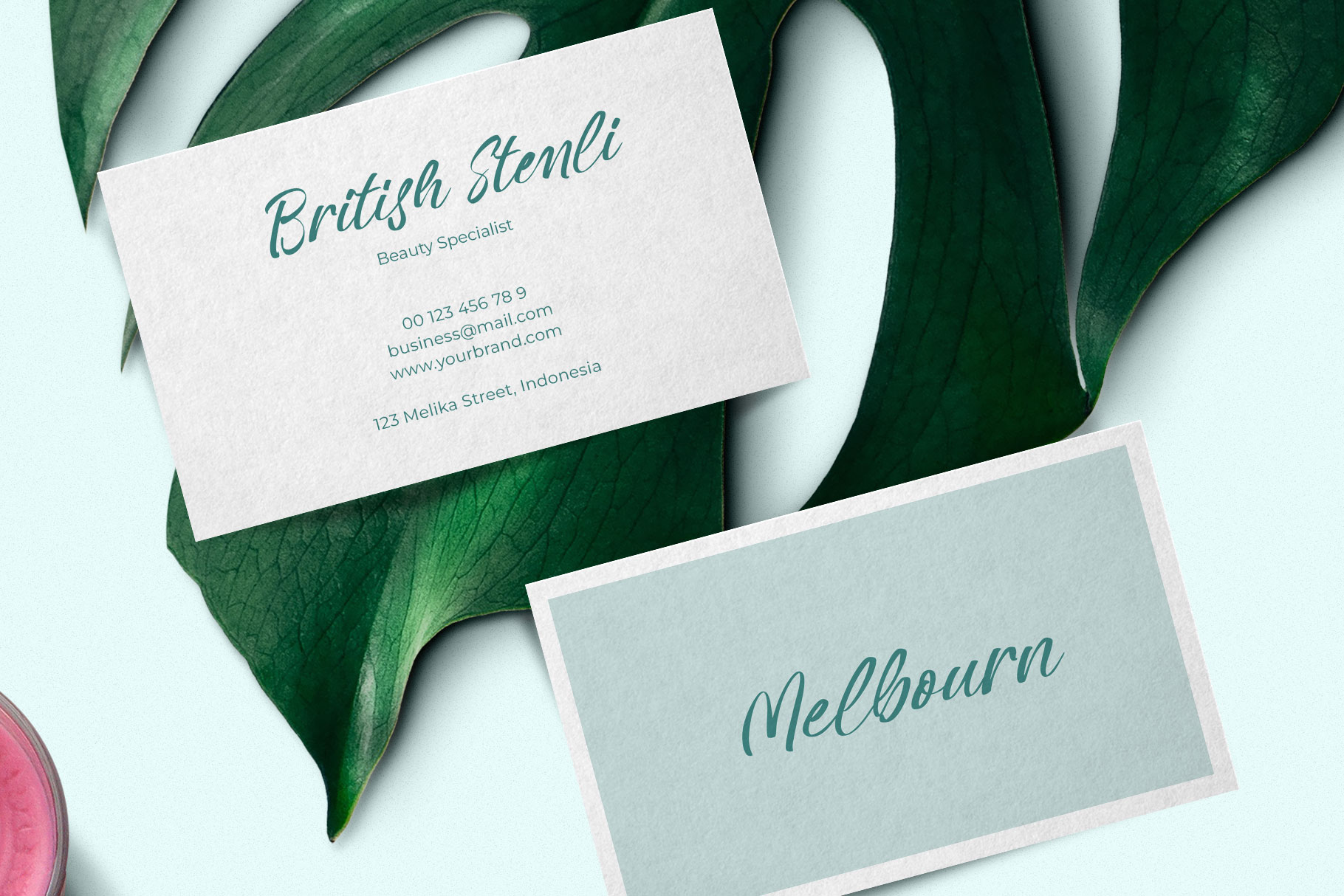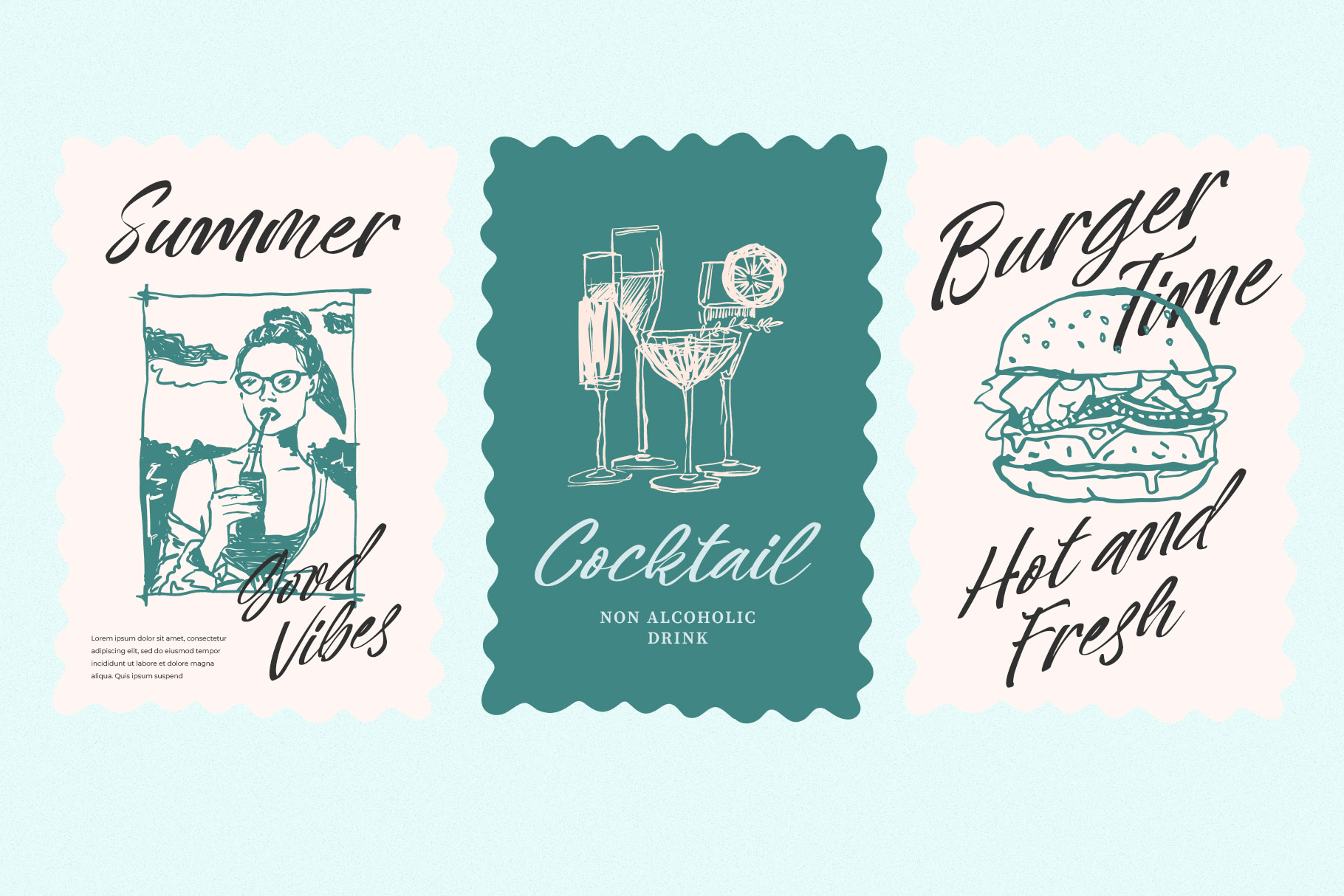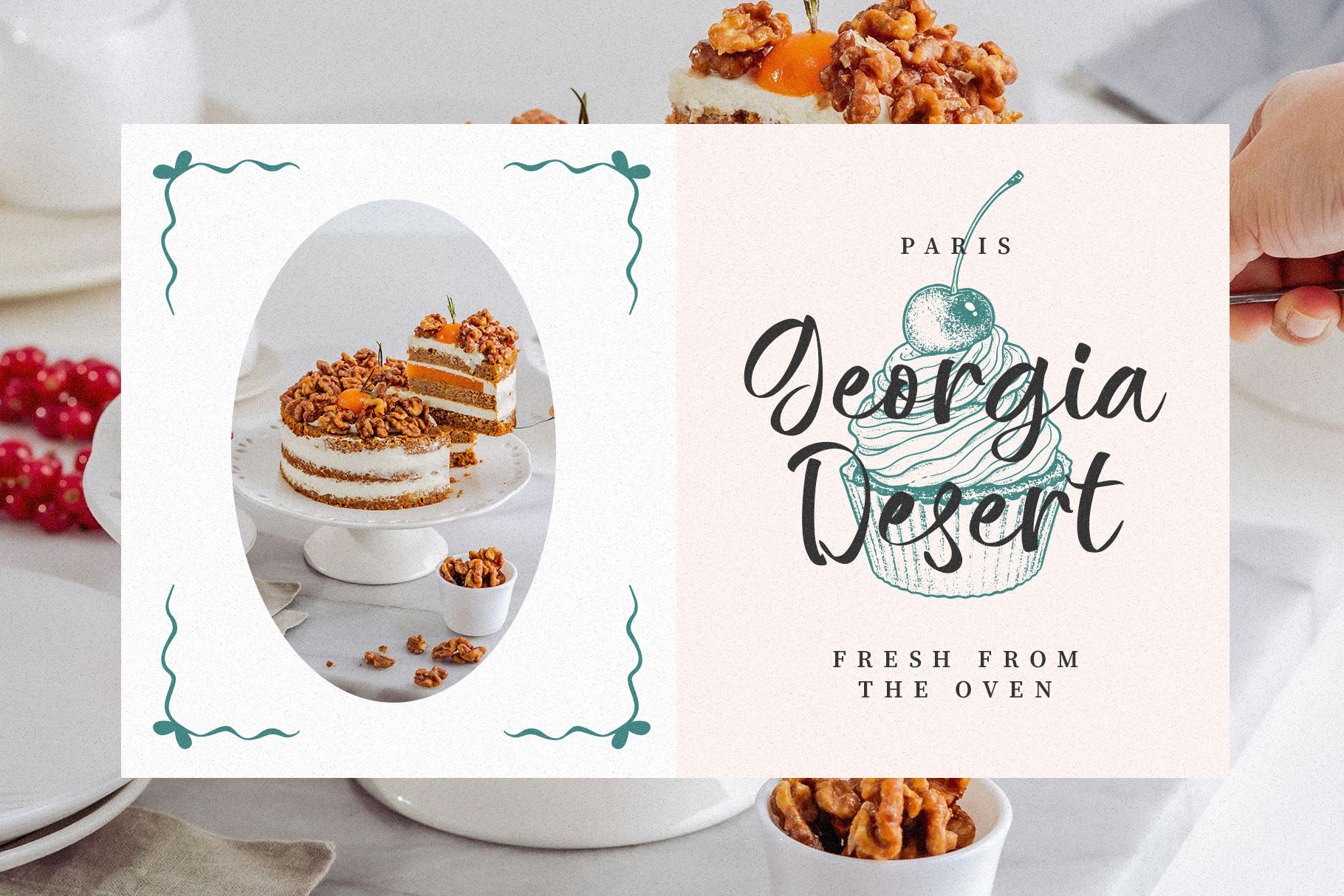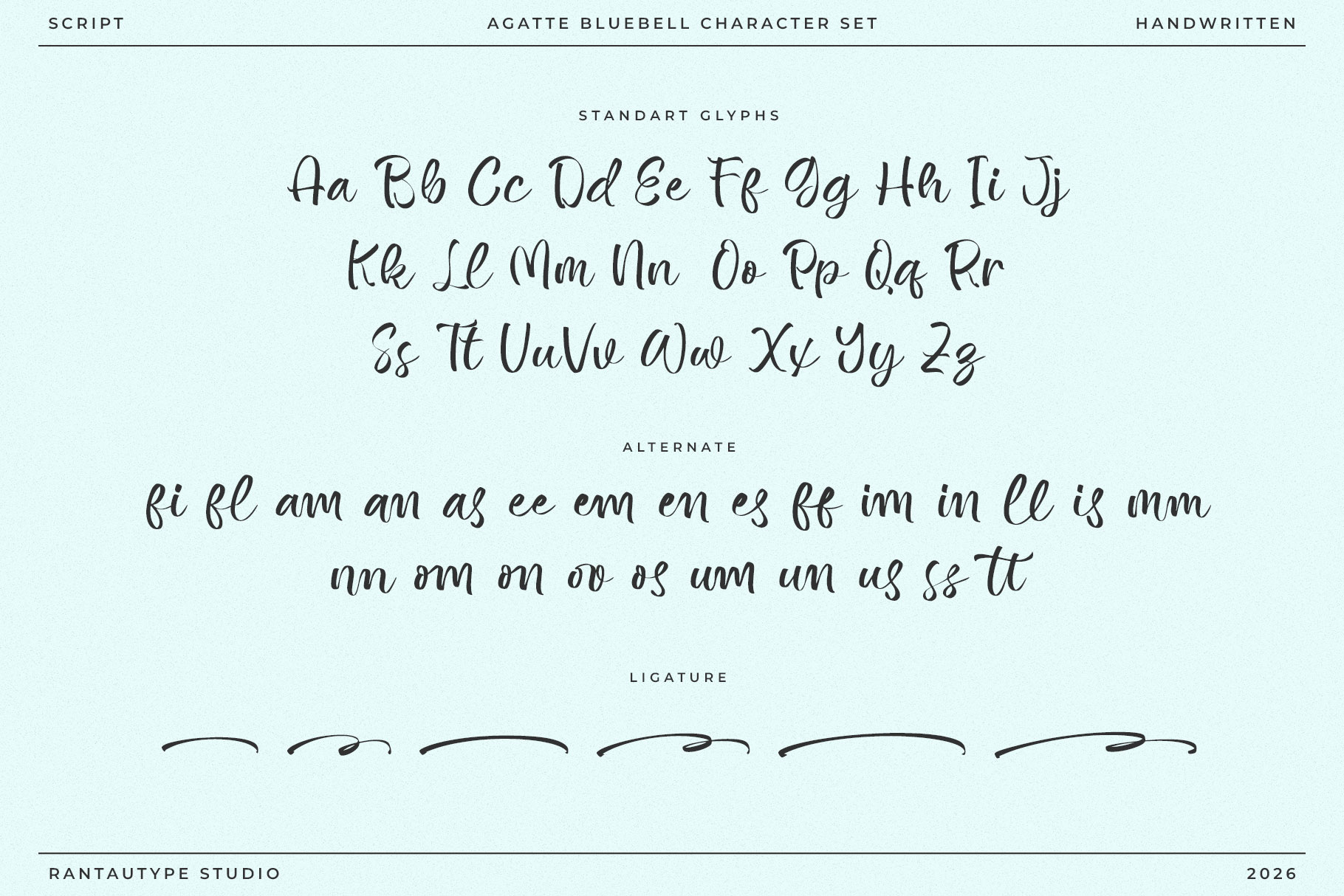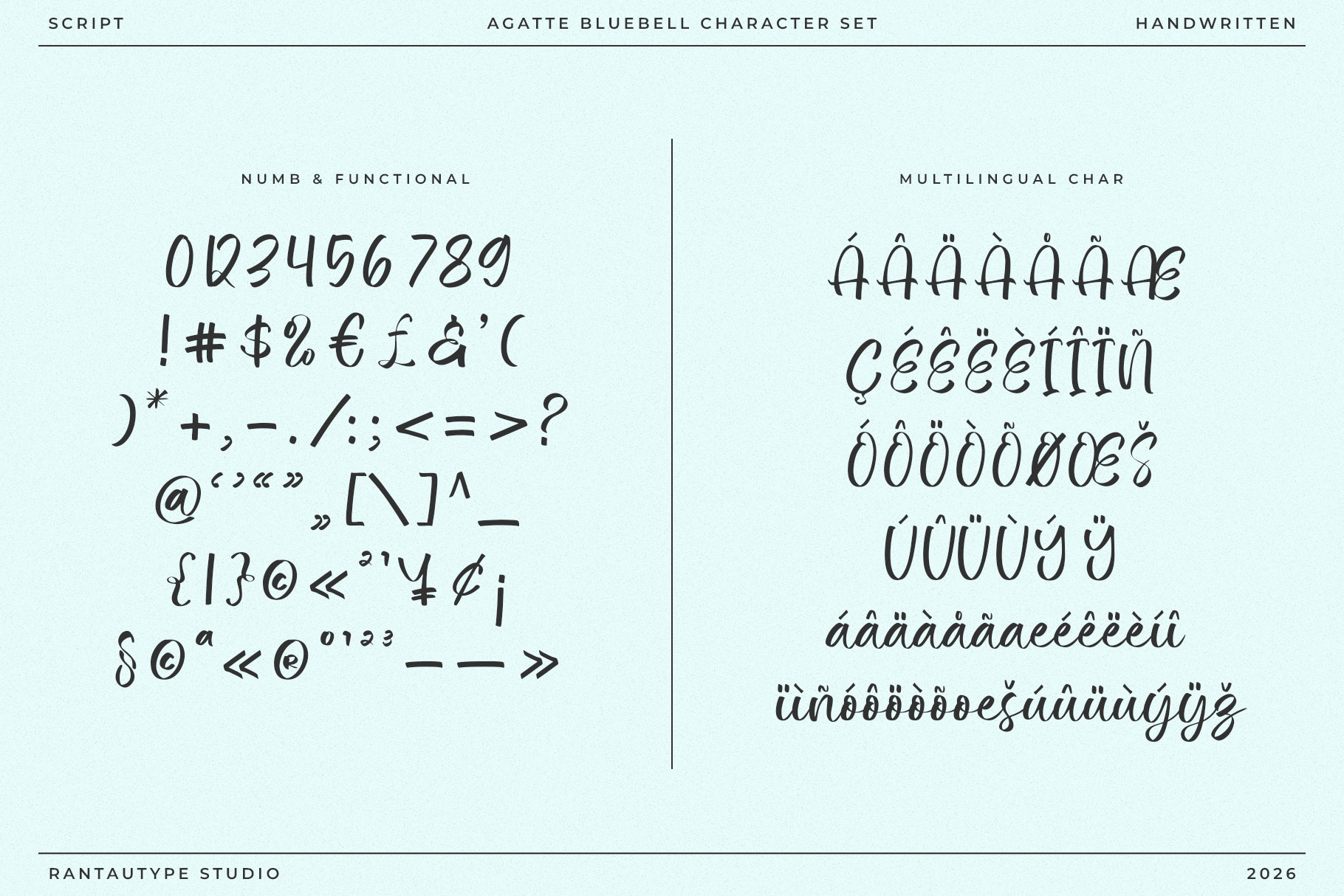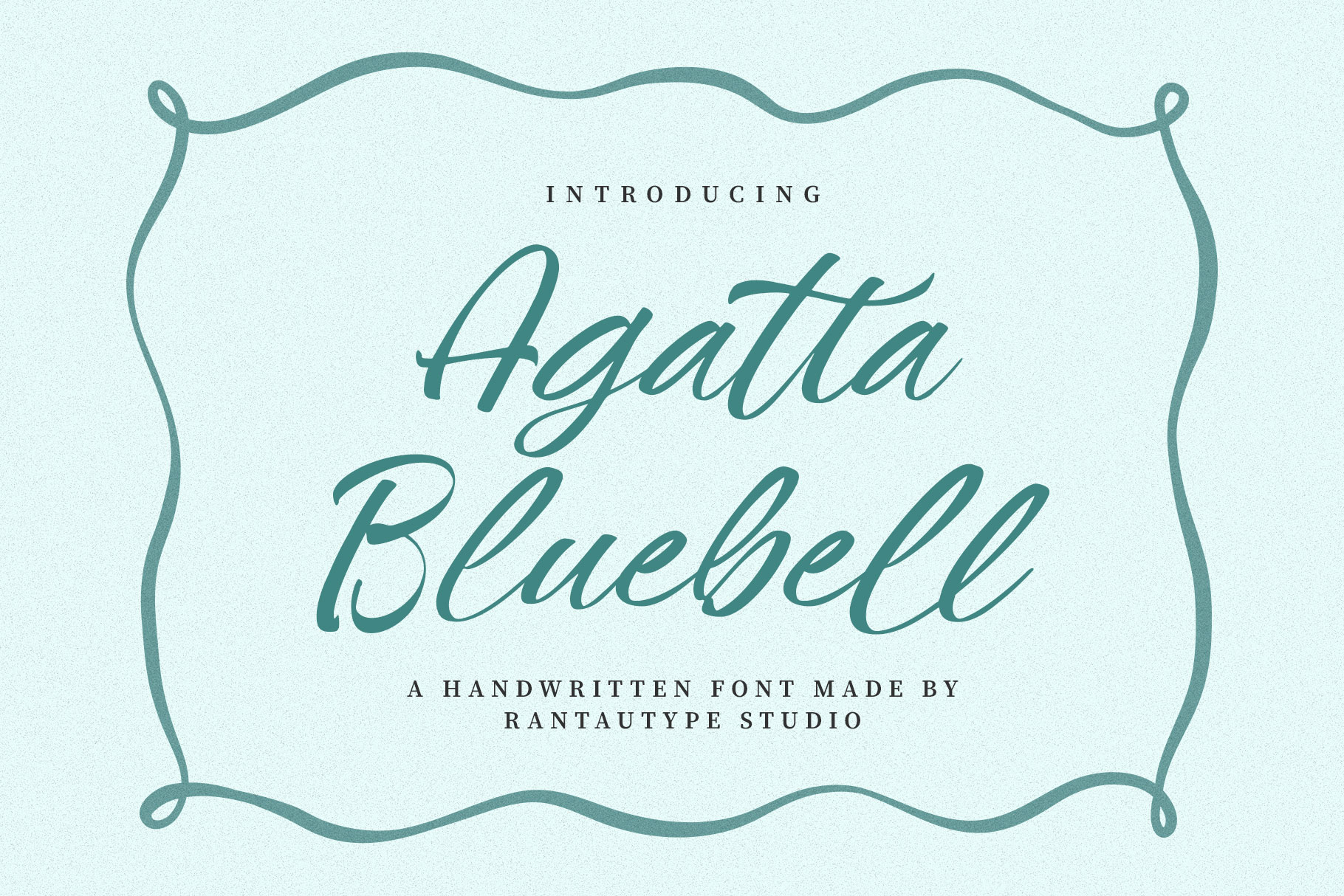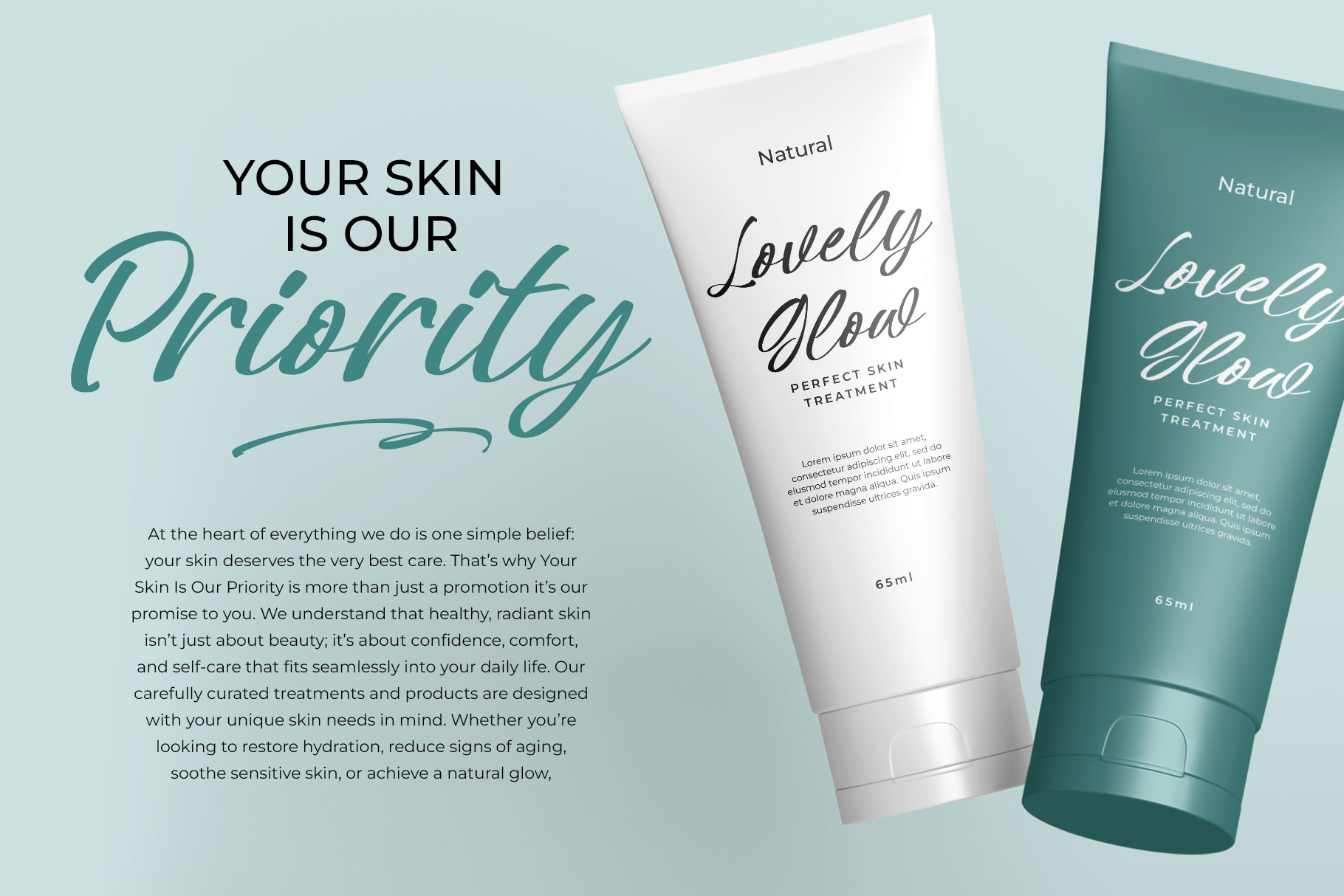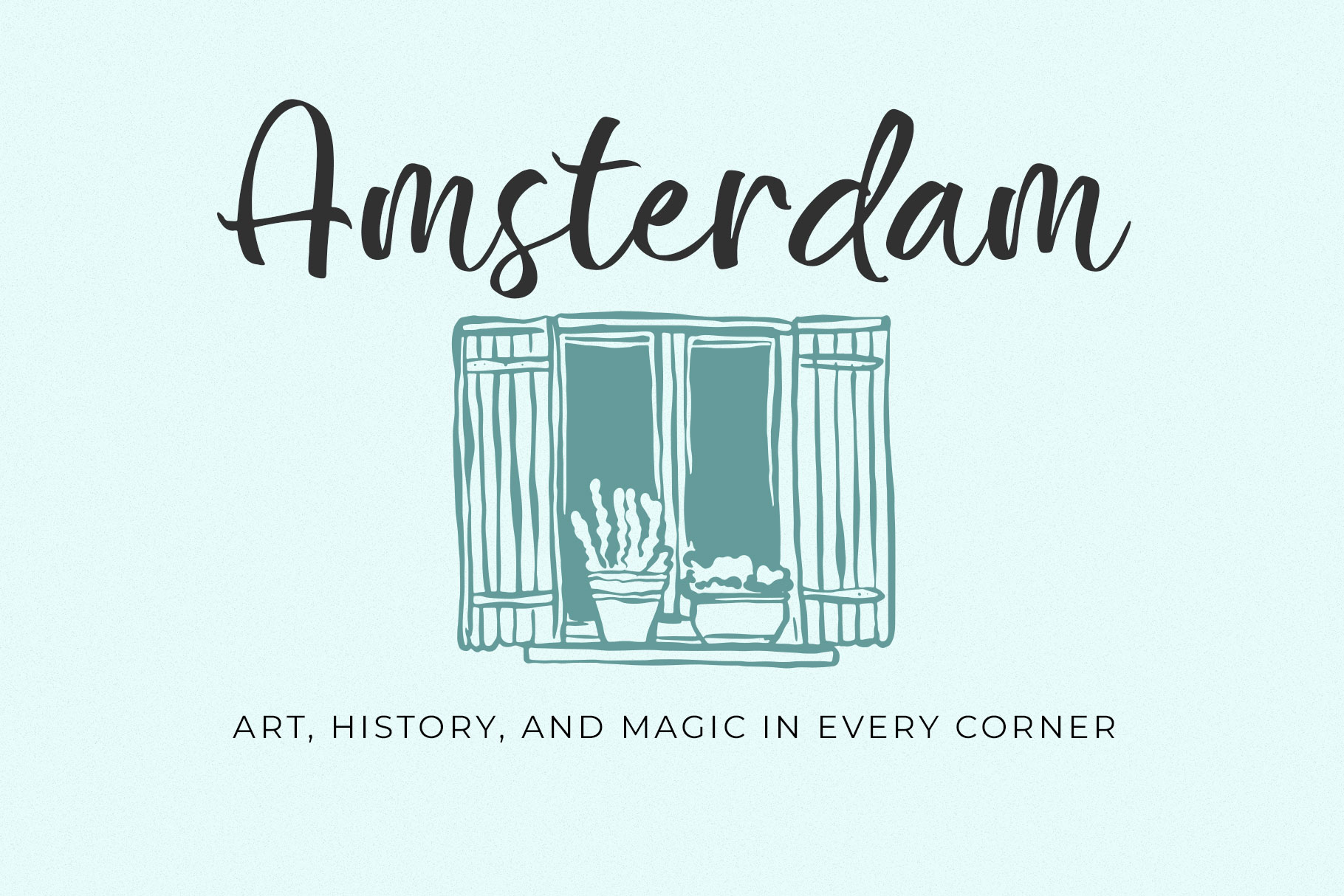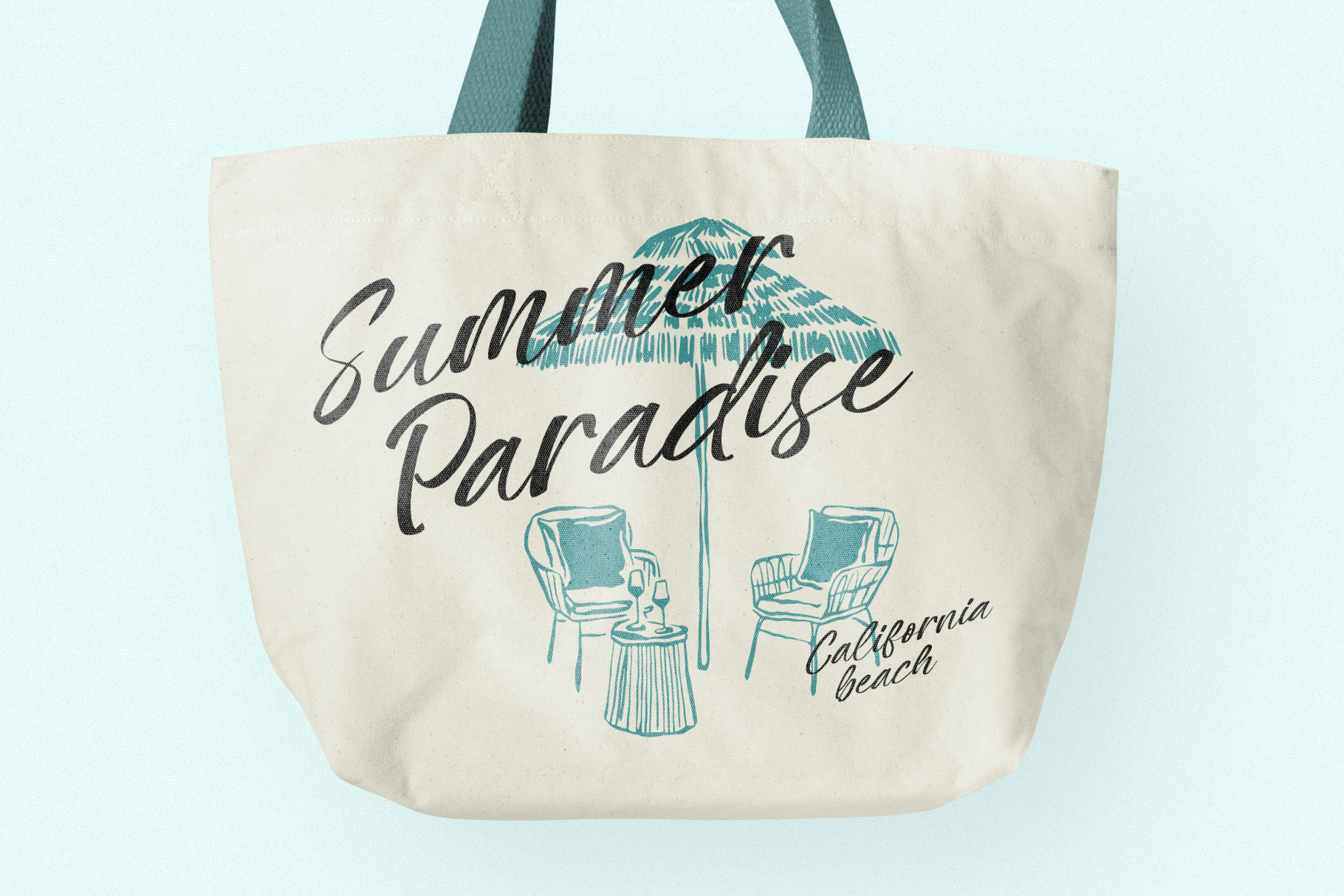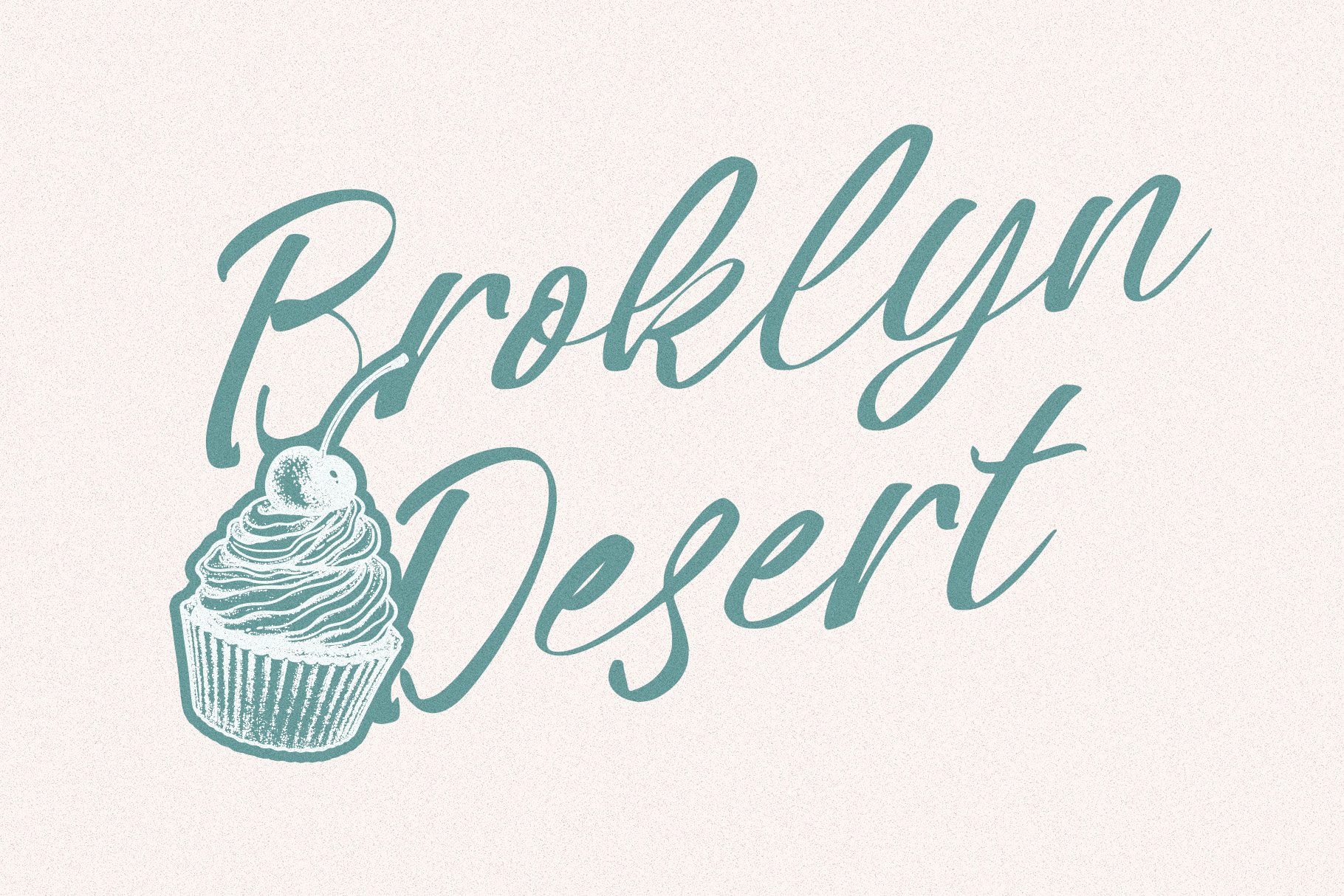
Agatta Bluebell a Handwritten Font
Agatta Bluebell is handwritten font embrace vintage and modern. Agatta Bluebell is a perfectly choice for any creative endeavor, creating, modern, lifestyle design such as logotype, title, cover, branding, invitations, wedding designs, display and magazine, social media posts, advertisements, printed quotes, product packaging, corporate brand, product designs, labels, photography, watermarks, special events and any other project with vintage touch.